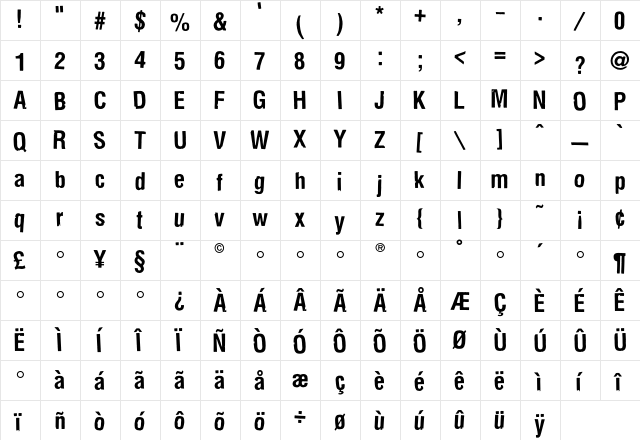
Dirtyhouse Regular
Design Context for Dirtyhouse Typeface
Dirtyhouse is a composed and adaptable typeface that performs quietly and consistently across a wide range of design contexts.